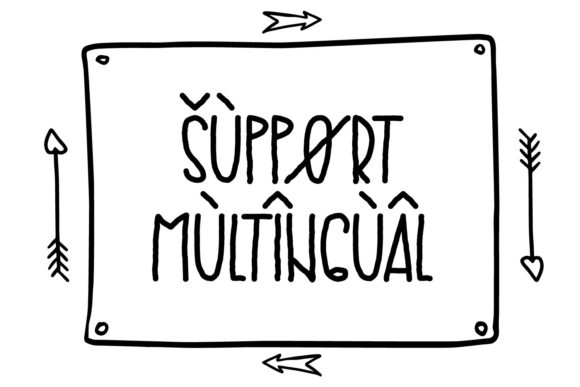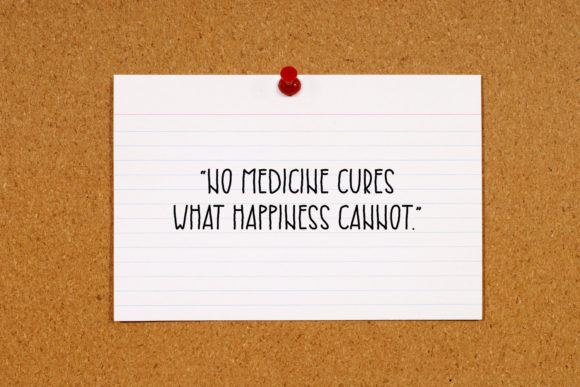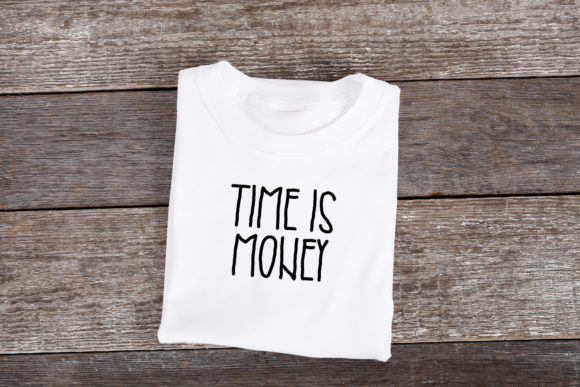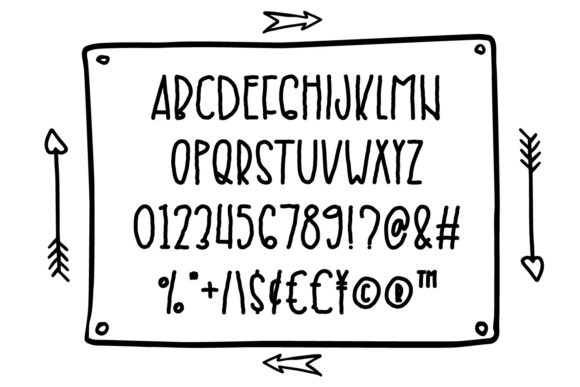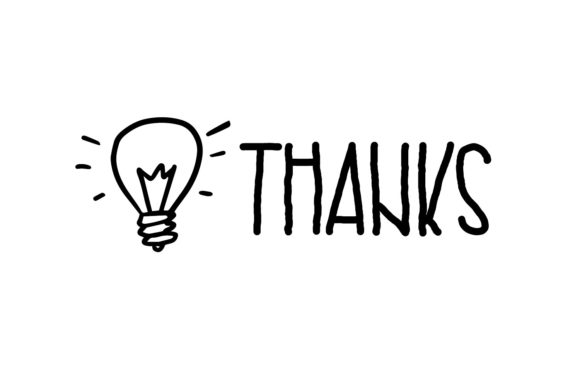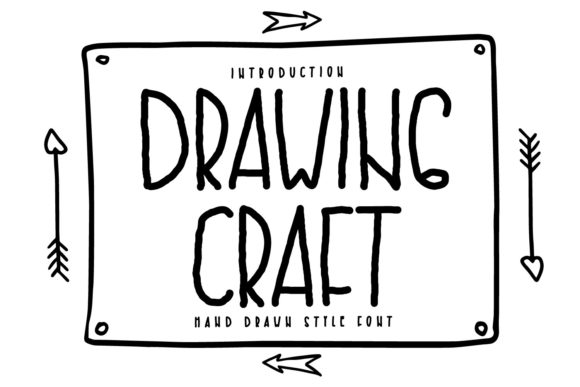
Introducing Drawing Craft Font: The Perfect Addition to Your Typography Library
Are you a designer, crafter, or DIY enthusiast looking for a font that can add a touch of whimsy and friendliness to your creations? Look no further than Drawing Craft Font! This delightful display font is perfect for a wide range of projects, from crafting and DIY tutorials to social media graphics and marketing materials.
What is Drawing Craft Font?
Drawing Craft Font is a neat and fun display font that is sure to bring a smile to your face. Its cute and friendly design makes it perfect for projects that require a jolly touch. Whether you’re creating a tutorial on paper crafting, a social media graphic for a crafting community, or a marketing material for a DIY product, Drawing Craft Font is the perfect choice.
Key Features of Drawing Craft Font
- Unique and Whimsical Design: Drawing Craft Font features a unique and whimsical design that is sure to stand out from the crowd.
- Cute and Friendly: The font’s cute and friendly design makes it perfect for projects that require a touch of personality.
- Display Font: Drawing Craft Font is a display font, making it perfect for headlines, titles, and other display text.
- Easy to Read: Despite its whimsical design, Drawing Craft Font is easy to read, making it perfect for use in a wide range of projects.
Uses for Drawing Craft Font
Drawing Craft Font is a versatile font that can be used in a wide range of projects, including:
- Crafting and DIY Tutorials: Add a touch of whimsy to your crafting and DIY tutorials with Drawing Craft Font.
- Social Media Graphics: Use Drawing Craft Font to create eye-catching social media graphics for your crafting or DIY community.
- Marketing Materials: Add a touch of personality to your marketing materials, such as brochures, flyers, and business cards.
- Stationery and Invitations: Use Drawing Craft Font to create cute and friendly stationery and invitations.
Benefits of Using Drawing Craft Font
There are many benefits to using Drawing Craft Font in your projects, including:
- Adds a Touch of Personality: Drawing Craft Font adds a touch of personality to your projects, making them more engaging and fun.
- Versatile: Drawing Craft Font can be used in a wide range of projects, from crafting and DIY tutorials to marketing materials and social media graphics.
In conclusion, Drawing Craft Font is a neat and fun display font that is perfect for adding a touch of whimsy and friendliness to your projects. Its unique and whimsical design makes it perfect for a wide range of projects, from crafting and DIY tutorials to marketing materials and social media graphics. With its ease of use, versatility, and free availability, Drawing Craft Font is a great addition to any typography library.